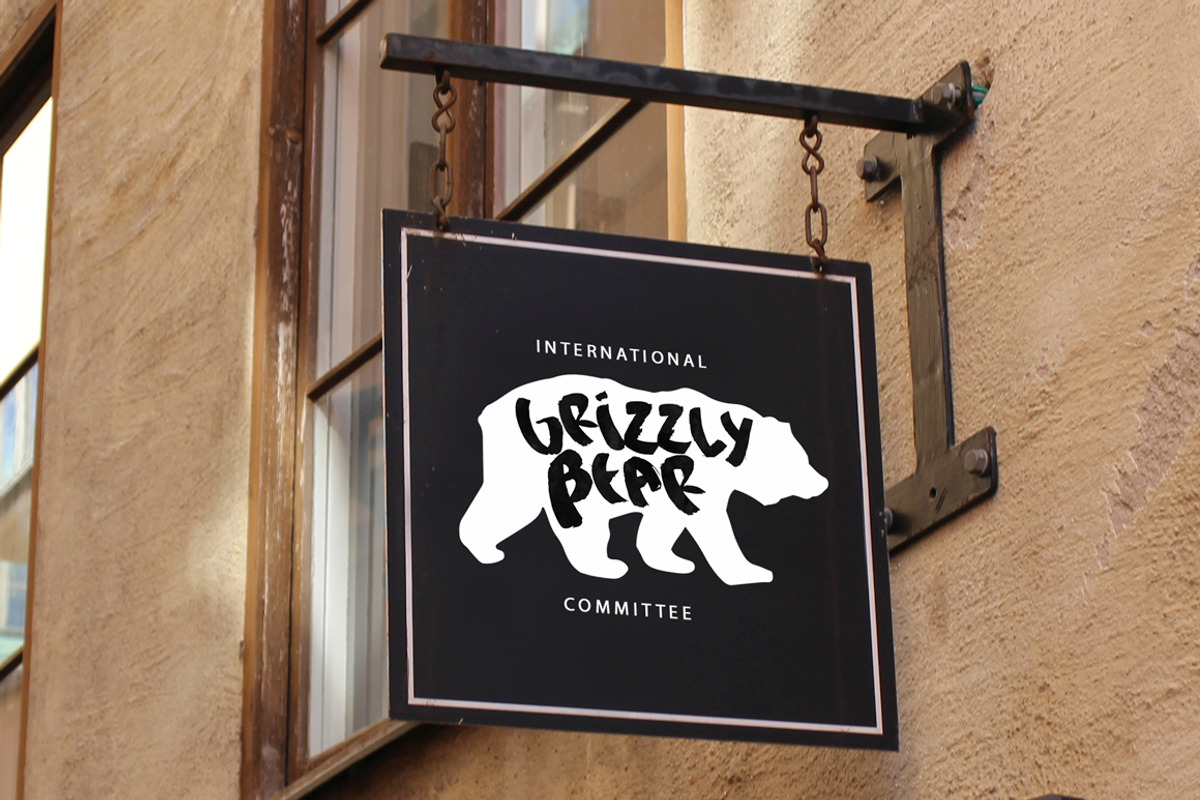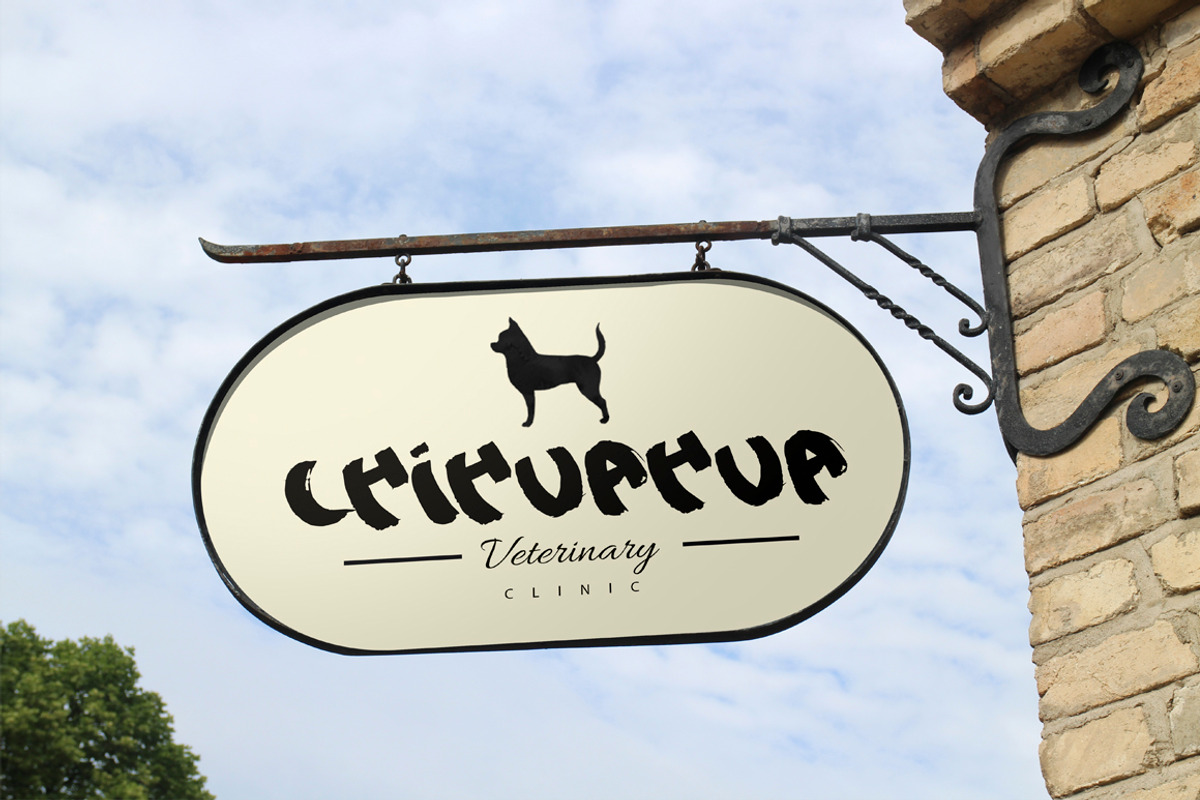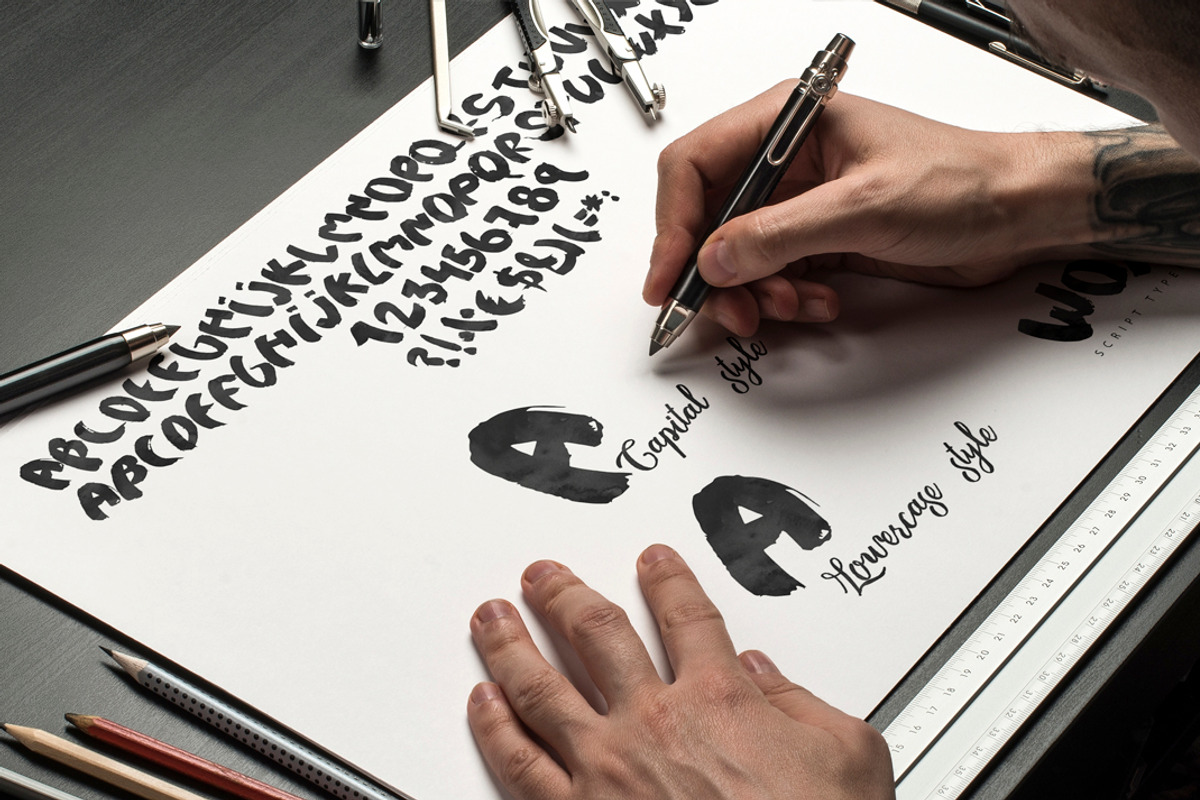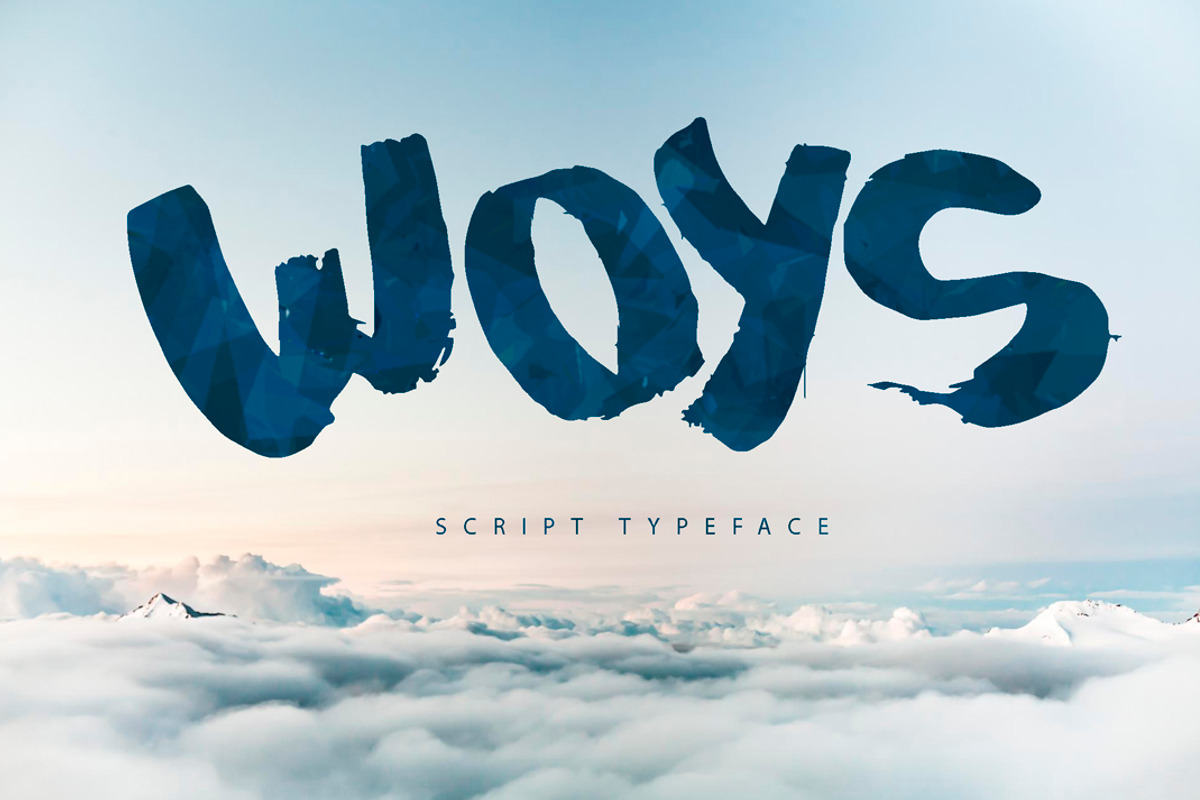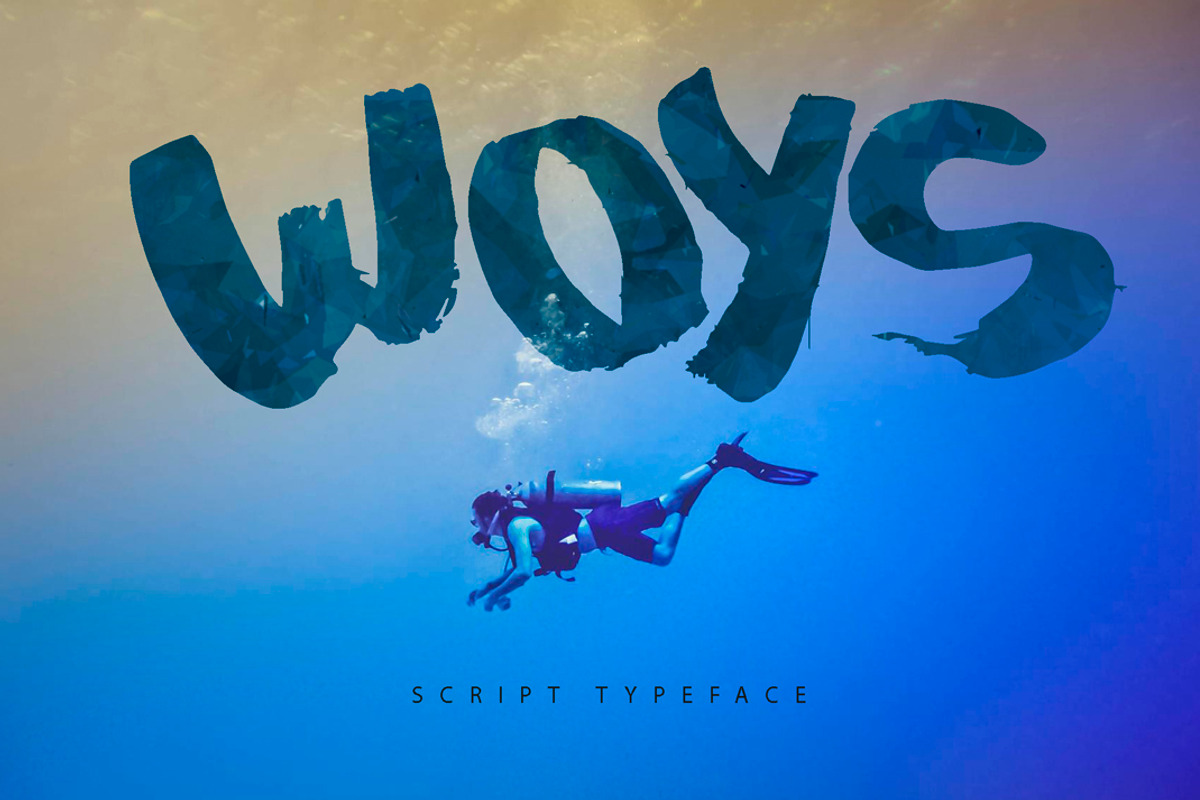
Woys Brush Typeface
Woys Brush Typeface by SmartDesigns is a font selected for branding, posters, packaging, typography.
- With Woys you can add some personality to your work (rotate flip to the left -uppercase- & right -lowercase-).
Why Woys Brush Typeface is worth a look
Woys Brush Typeface by SmartDesigns fits naturally into Branding, posters, packaging, typography.